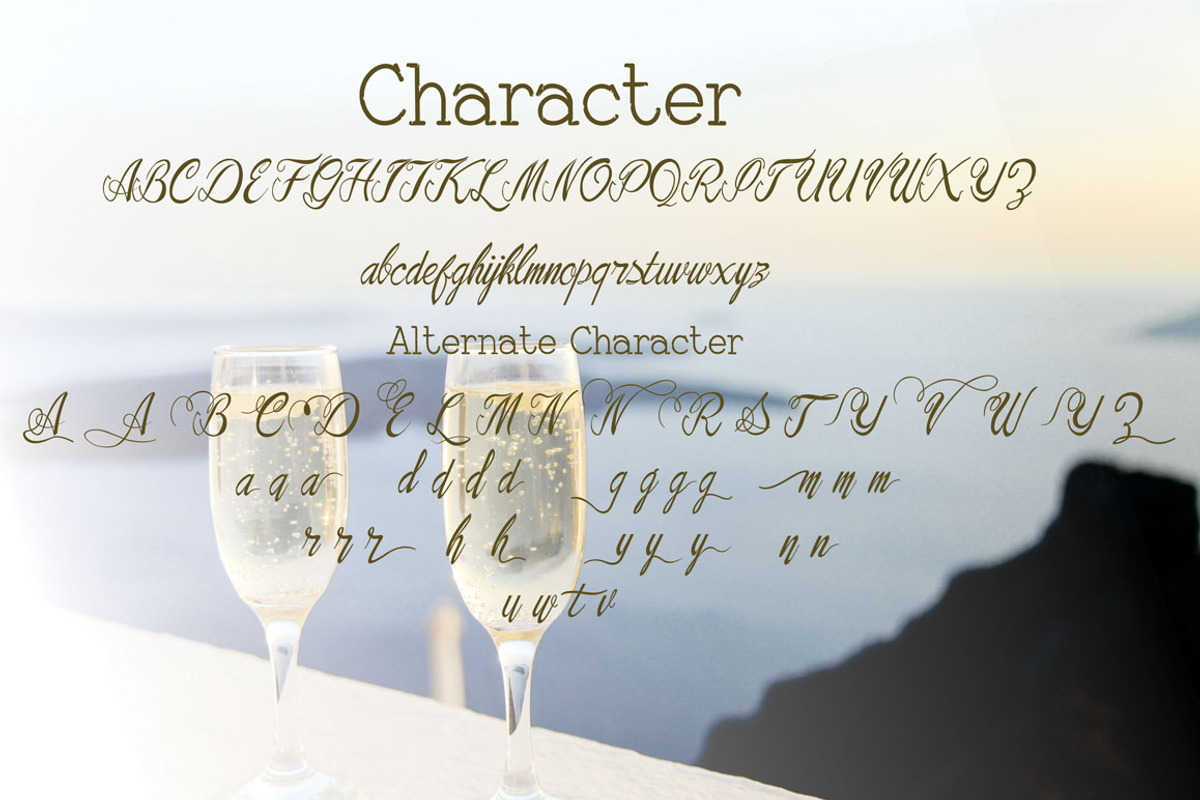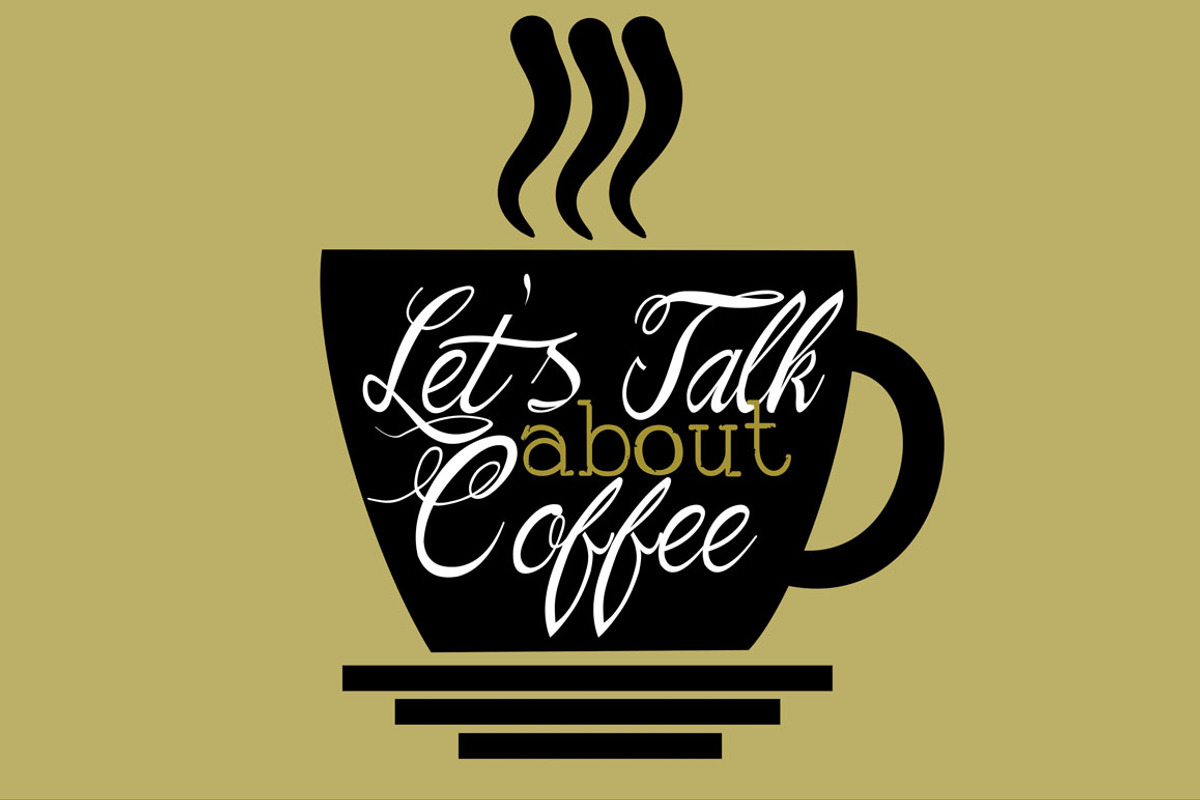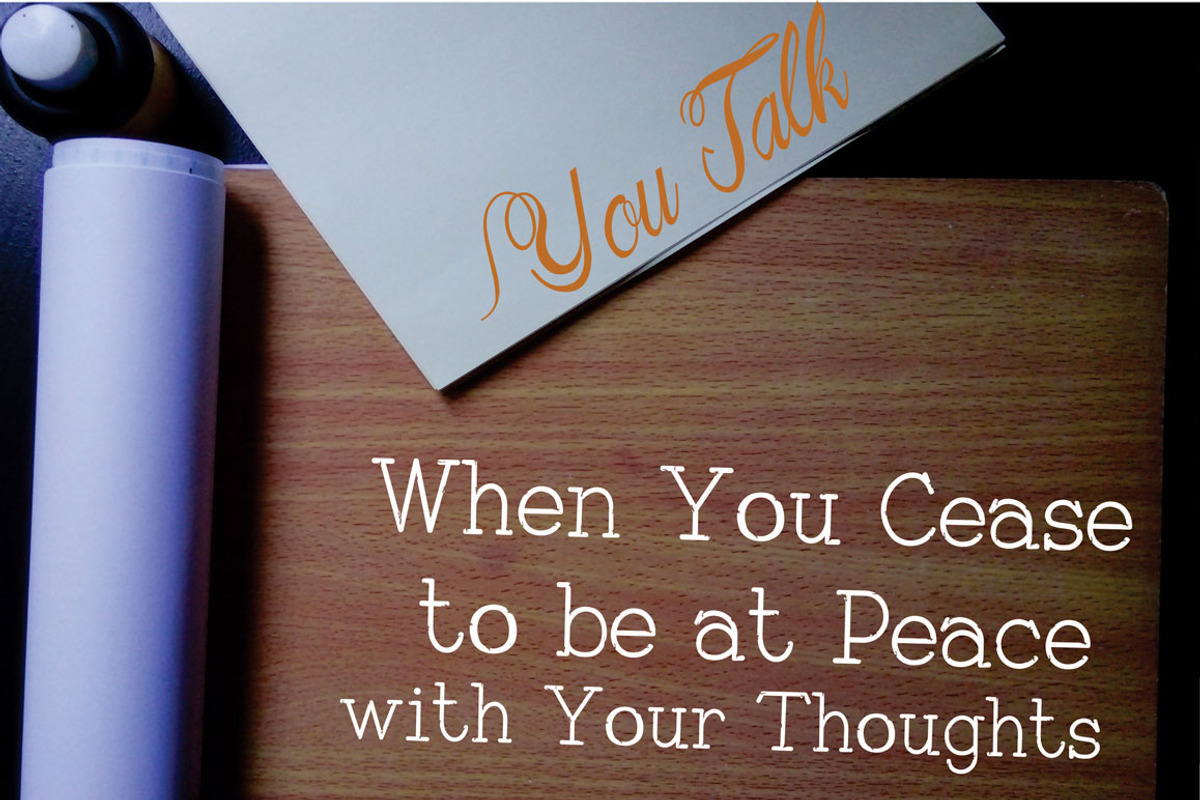
The Natural Old Font Duo
The Natural Old Font Duo by McJer.Studio is a font selected for branding, posters, packaging, typography.
- Natural Old Script Font
- Beukah Type Serif.
- 1. Natural Old Script Font
- 2. Beukah Type Serif.
- The Natural Old Font is handmade font with Ligature and alternate gylph of script font and standart type of Font Serif.
Why The Natural Old Font Duo is worth a look
The Natural Old Font Duo by McJer.Studio fits naturally into Branding, posters, packaging, typography.